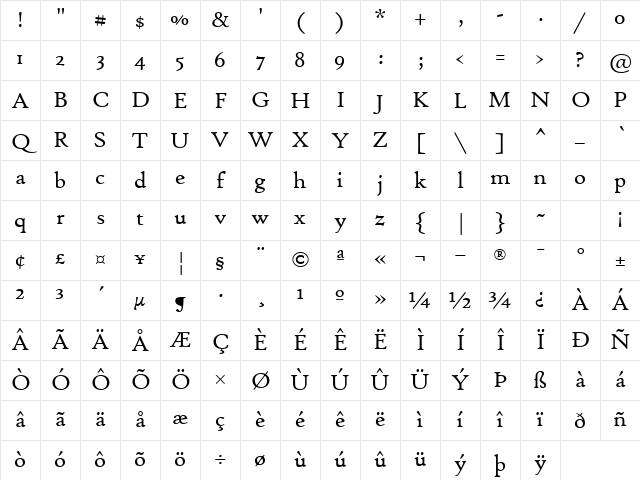
High Tower Text Regular
Foundry: The Font Bureau, Inc.
Designer: Tobias Frere-Jones
Design Context for High Tower Text
High Tower Text is a composed and adaptable typeface that performs quietly and consistently across a wide range of design contexts.